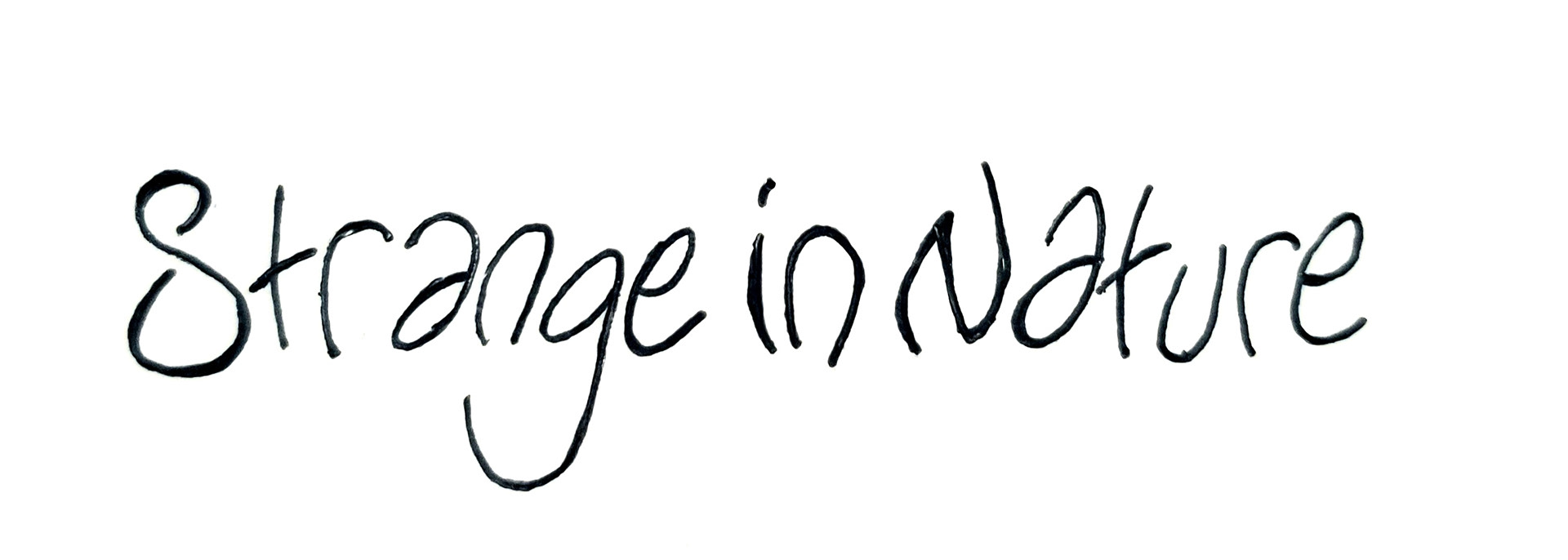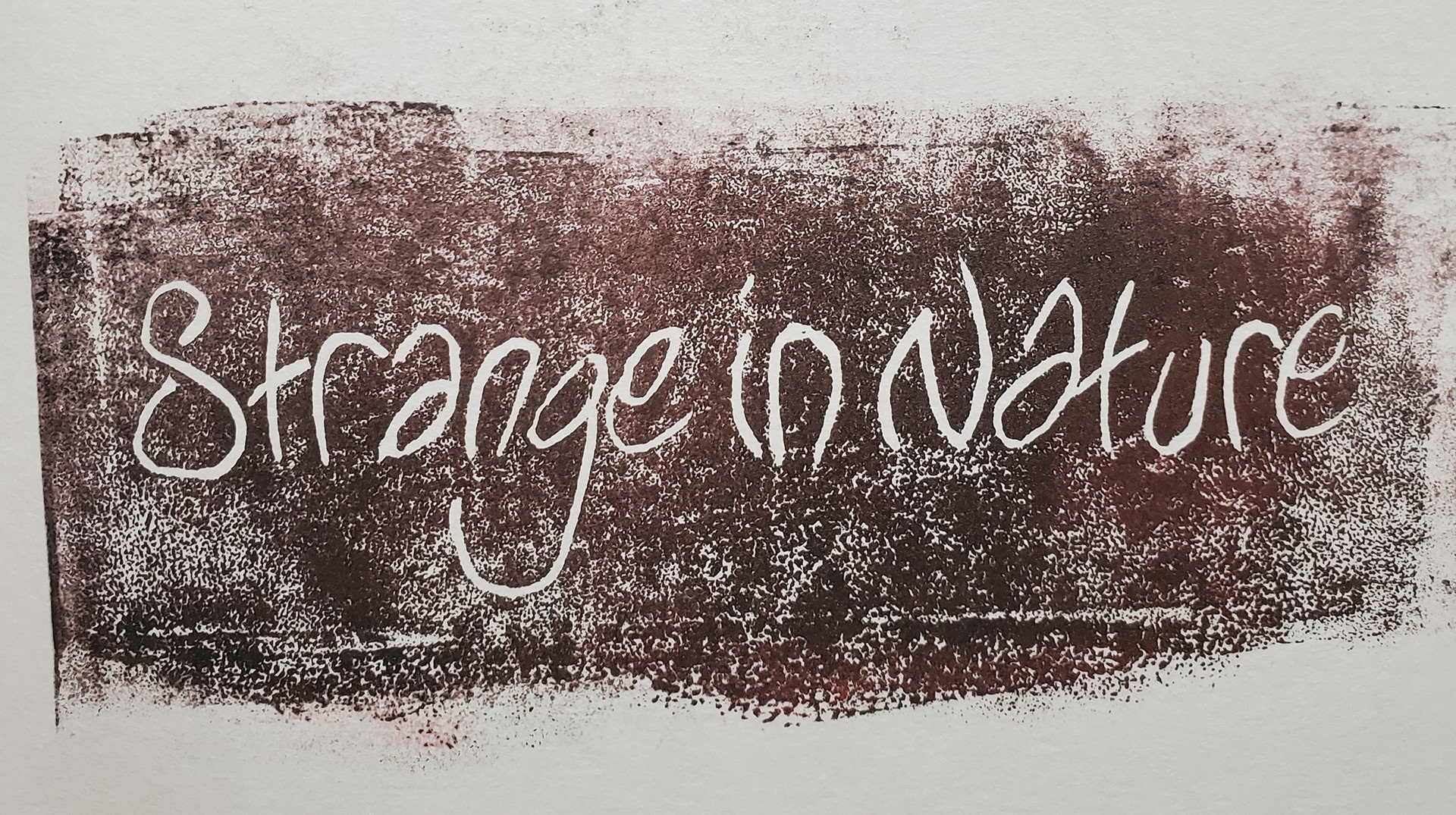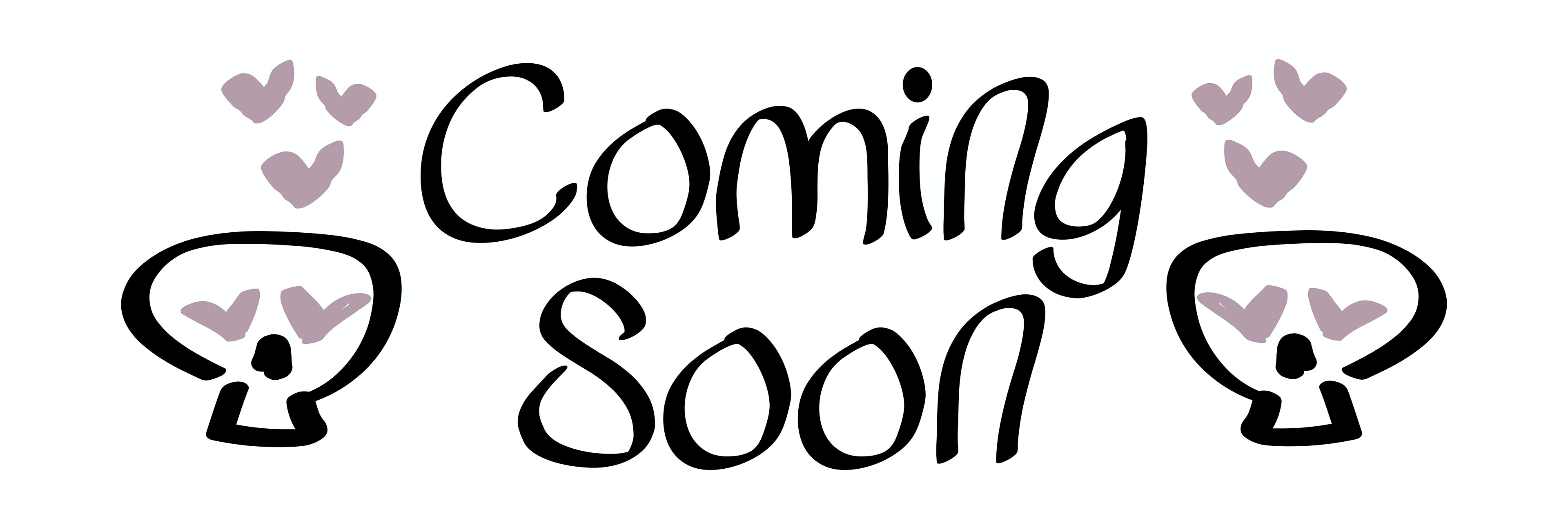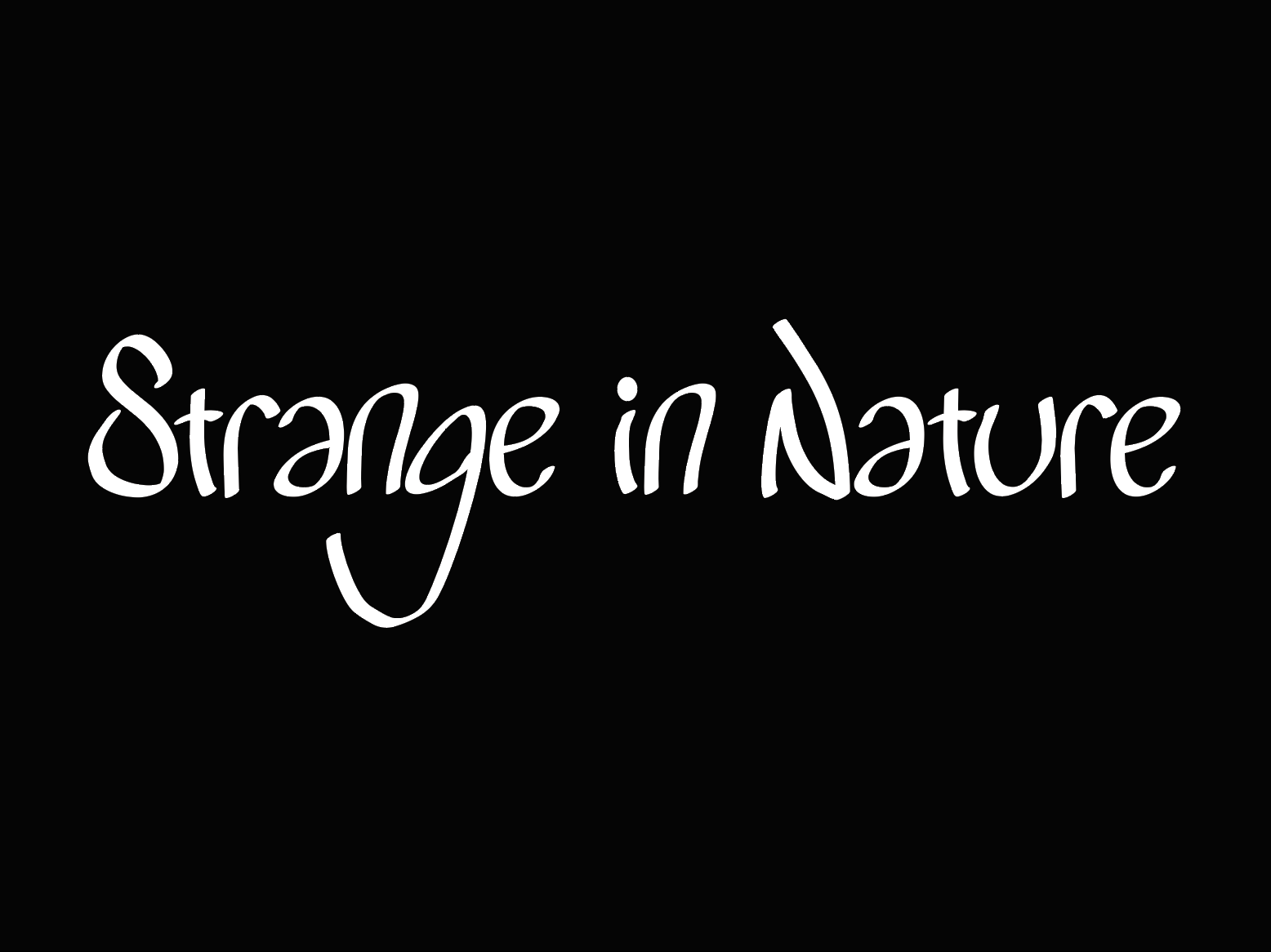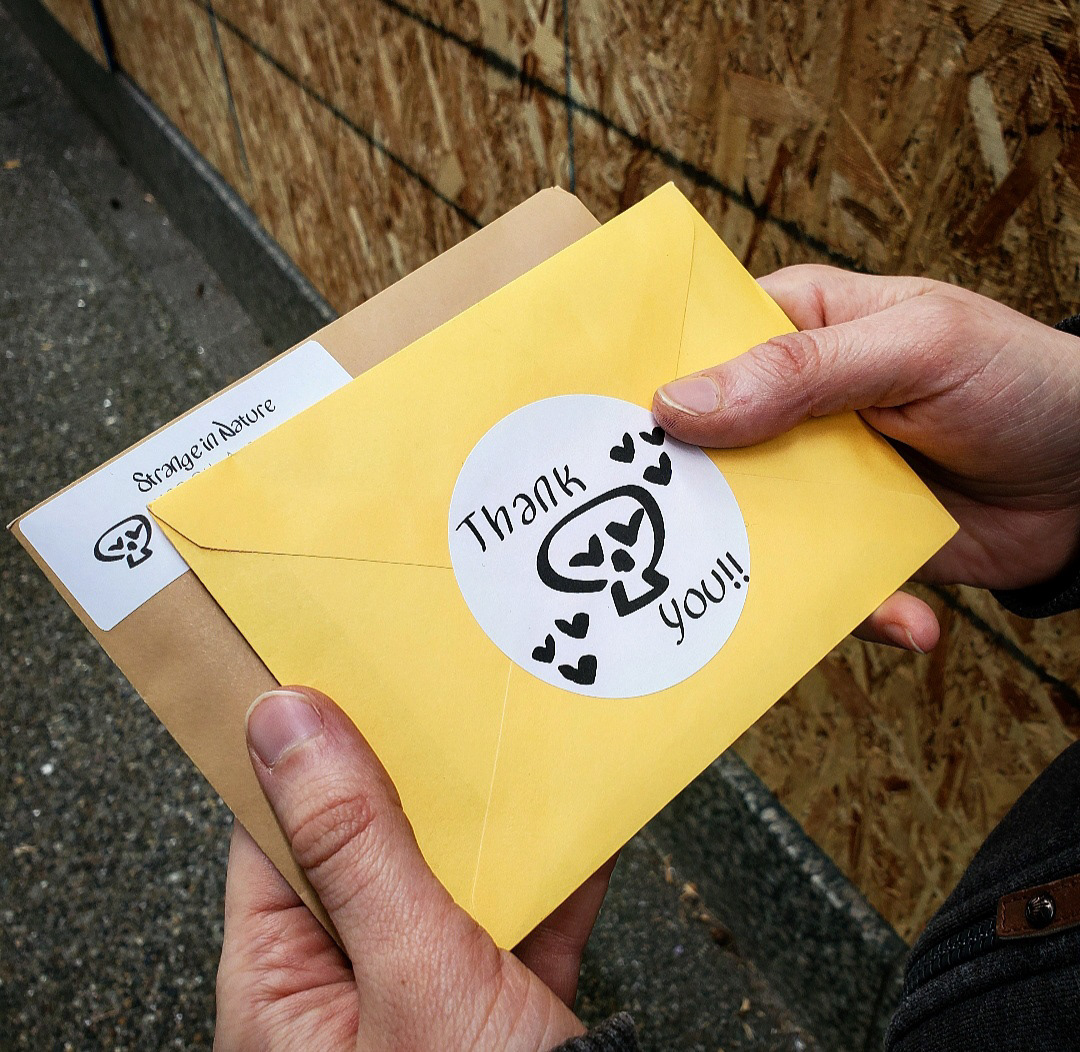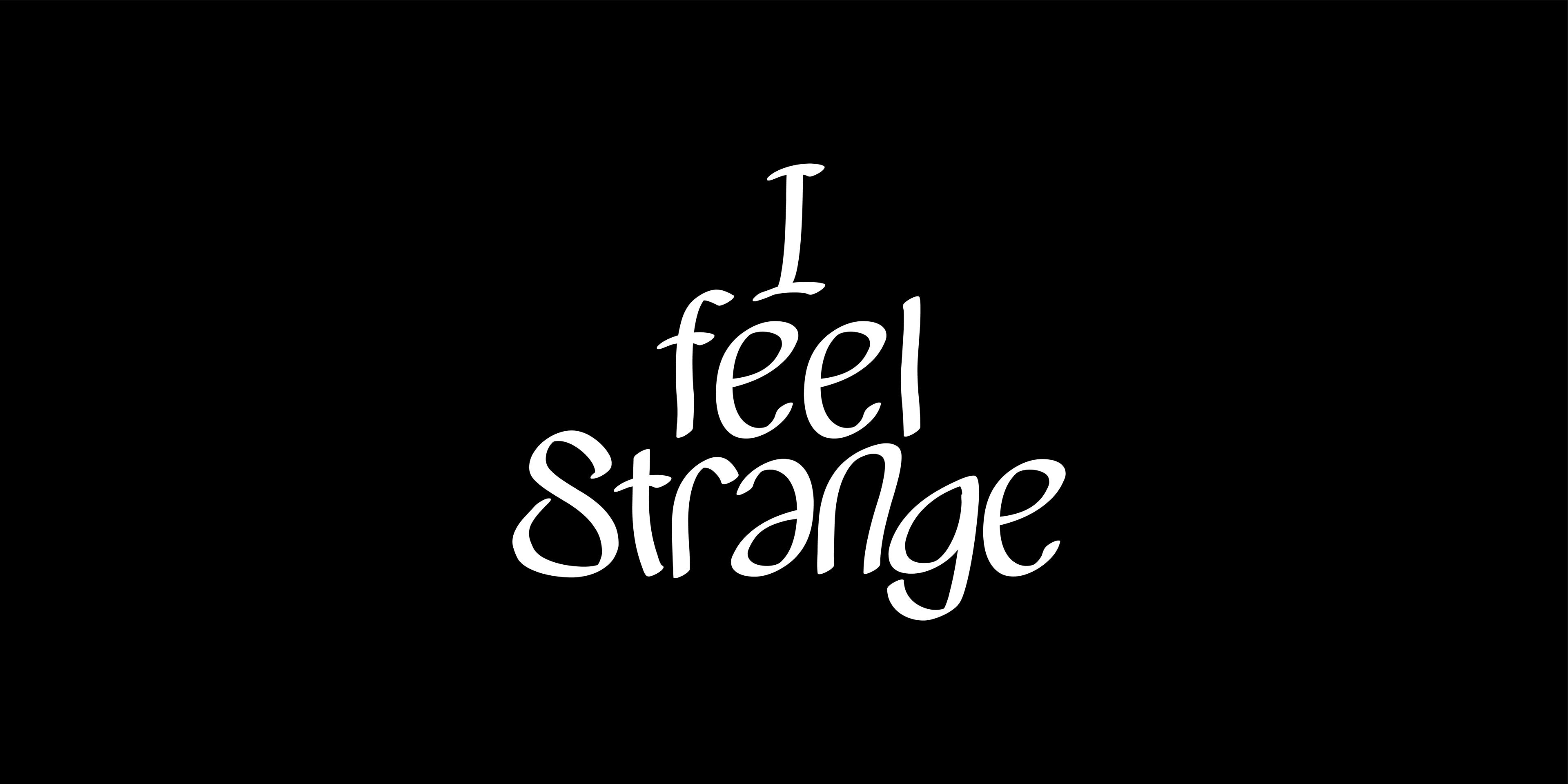
A typeface made in Font Lab Studio based entirely on my handwriting. Designed for my LLC of the same name. In that respect, there are unique glyphs made specifically for the Strange in Nature branding, but it also includes over 40 unique glyphs and even some illustrated ones.